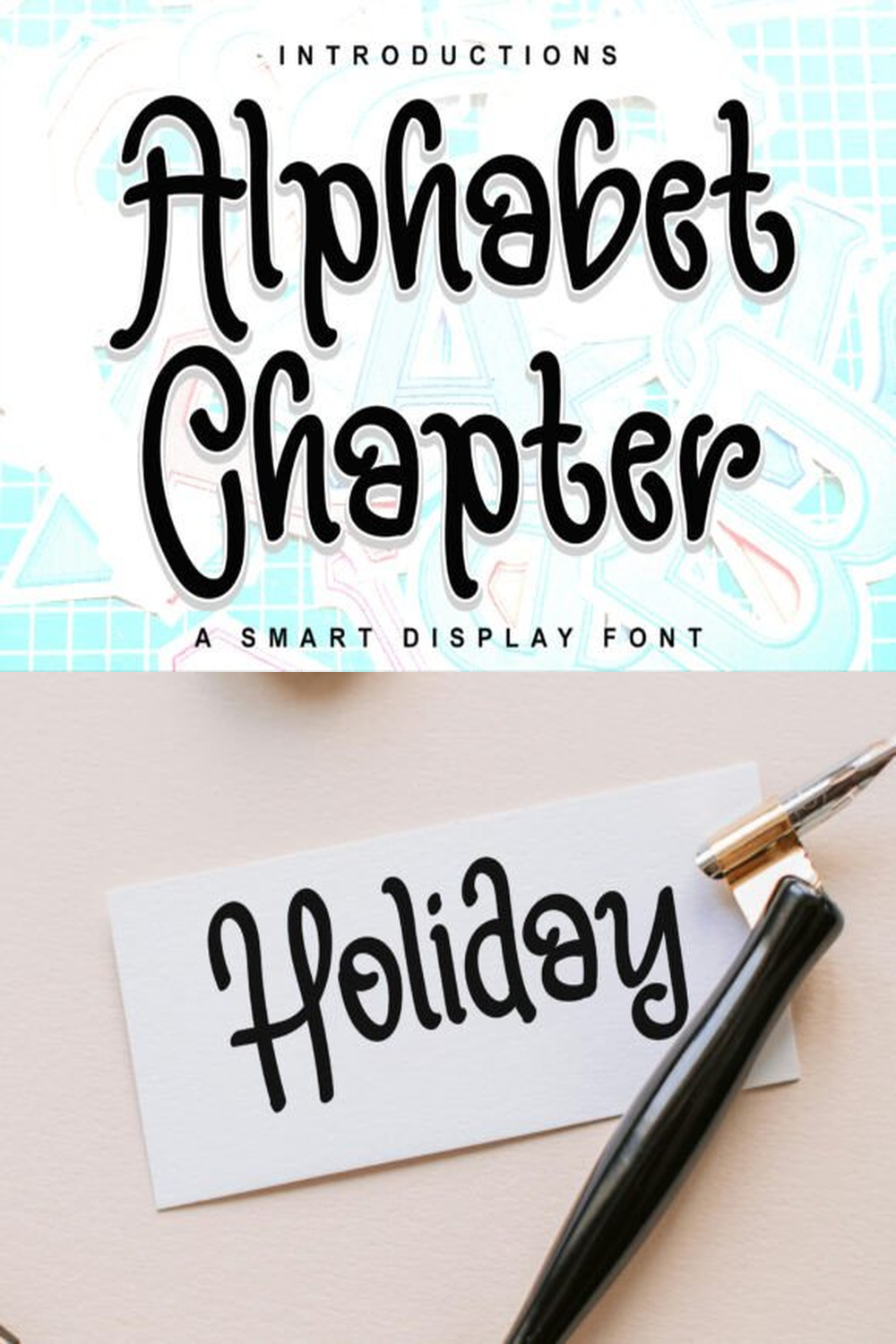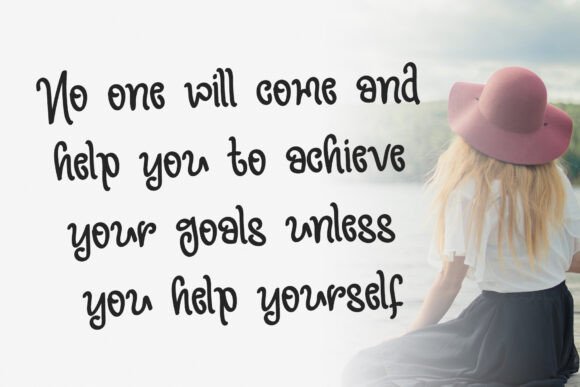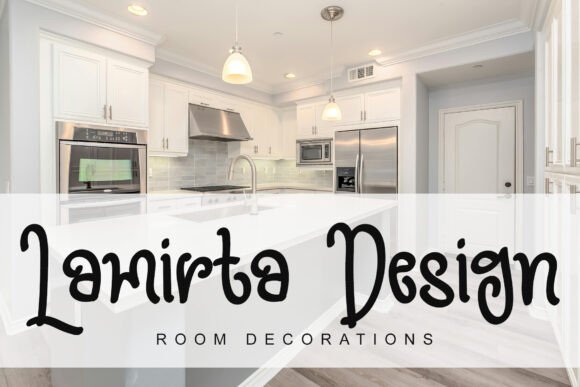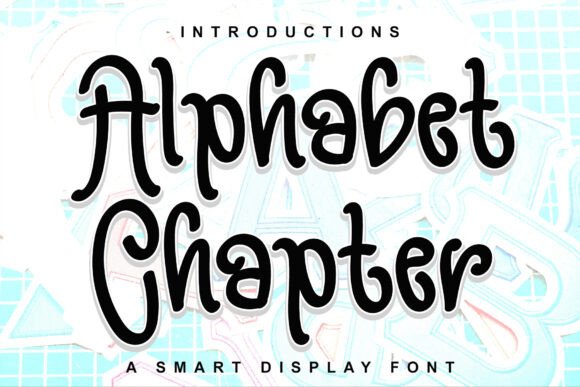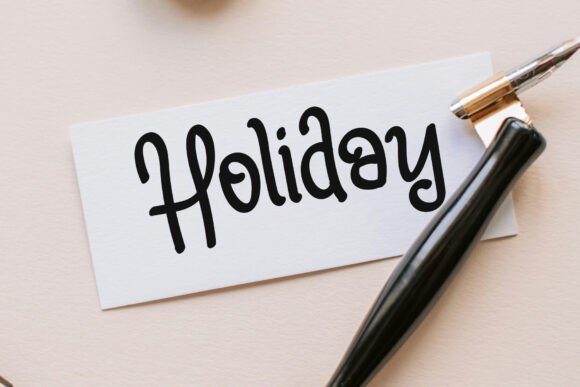
Alphabet Chapter Font
About the Alphabet Chapter Font
We are excited to introduce Alphabet Chapter Font, a must-have typeface for any serious designer. Alphabet Chapter is a beautiful handwritten font. Its distinct and well rounded letters make this font a masterpiece. Fall in love with its incredibly versatile style and use it to create spectacular designs!
Alphabet Chapter Font Usage Examples